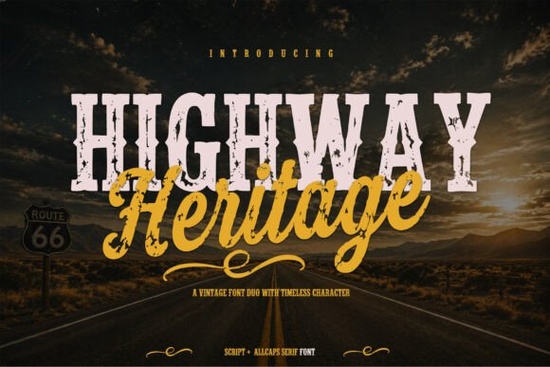
If you’ve been searching for a font that captures the spirit of classic American road trips, weathered diner signs, or retro packaging with authenticity not just imitation Highway Heritage Font might be exactly what your next project needs. This vintage font duo pairs a bold, all-caps serif with a smooth, hand-drawn script, giving you two complementary styles in one package. It’s especially useful for designers and small business owners who want to evoke nostalgia without sacrificing clarity or modern usability.
What makes Highway Heritage stand out from other vintage fonts?
Many retro fonts lean too heavily into distressed textures or exaggerated curves, which can hurt readability especially at smaller sizes or on product labels. Highway Heritage avoids that trap. The serif font is sturdy and clean, inspired by mid-century highway signage and western typography, while the script offers graceful, natural flow without looking overly ornate. Together, they create contrast that feels intentional, not chaotic.
This balance makes the duo surprisingly versatile. You can use the serif for headlines or packaging text that needs to grab attention, and the script for accents, quotes, or branding elements that add personality. Unlike single-style fonts, having both in a matched pair saves time and ensures visual harmony.
Who should consider using this font?
It’s a strong fit for:
- Print-on-demand sellers creating t-shirts, mugs, or posters with Americana, cowboy, or retro travel themes.
- Small food or beverage brands designing labels for coffee, BBQ sauces, or craft sodas that want a heritage feel.
- Event planners or invitation designers working on rustic weddings, barn parties, or vintage-themed gatherings.
- Crafters and hobbyists making wood signs, embroidery patterns, or digital scrapbook kits.
If your work leans into authenticity think old gas stations, Route 66 memorabilia, or 1950s advertising you’ll find Highway Heritage more usable than many “vintage” fonts that prioritize style over function.
How does it compare to other script fonts on Creative Fabrica?
While Highway Heritage includes a script, it’s quite different in tone from softer, modern handwriting styles like Honey Notes or Rose Cake, which lean into delicate, feminine aesthetics. It also contrasts with the playful bounce of Clover Fields or the refined elegance of Stylish Handwriting. Those fonts shine in contexts like greeting cards, beauty branding, or lifestyle blogs but if you need something with grit and historical character, Highway Heritage fills a different niche.
The script in this duo isn’t meant to mimic casual penmanship; it echoes the flourished lettering seen on vintage storefronts and neon signs. That distinction matters when you’re trying to match a specific era or mood.
Practical tips for using Highway Heritage effectively
Because it’s a duo, you get more creative control but also more responsibility to use the pair thoughtfully:
- Avoid using both fonts at full intensity in the same layout. Let one dominate (usually the serif) and use the script sparingly for names, slogans, or decorative lines.
- Pair with simple sans-serif fonts for body text or supporting information. The contrast keeps your design legible and uncluttered.
- Test print or mockup early. The serif holds up well even at small sizes, but the script works best above 18pt unless used as a subtle accent.
- Use color wisely. Earth tones, muted reds, and cream backgrounds enhance the vintage vibe without overwhelming the typography.
Remember: vintage doesn’t have to mean “faded.” Highway Heritage gives you the look of history with the sharpness needed for today’s digital and print applications.
If your brand, product, or project calls for a genuine retro-American aesthetic with readability and flexibility built in this font duo delivers. It’s available through Creative Fabrica with a commercial license, so you can use it confidently for client work or shop products.
Before you download, ask yourself:
- Does my design need a bold, readable headline font with vintage roots?
- Do I also want a matching script for accents or personalization?
- Am I aiming for western, roadside, or mid-century Americana not just “old-looking”?
If you answered yes to most of these, Highway Heritage is likely a smart addition to your toolkit.